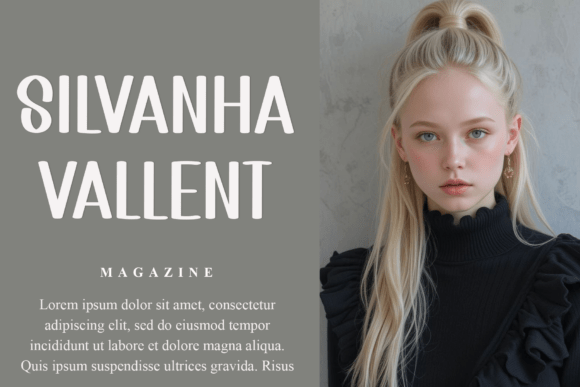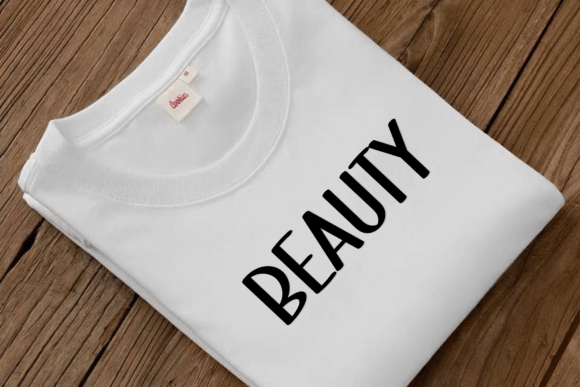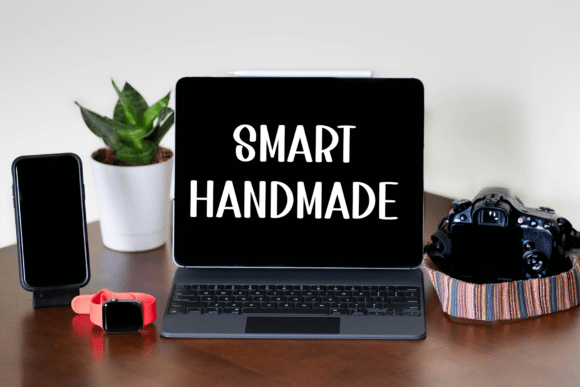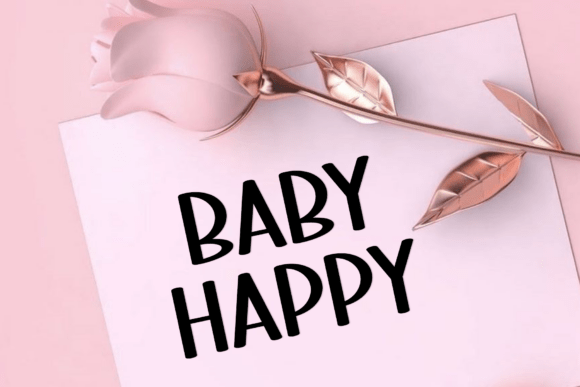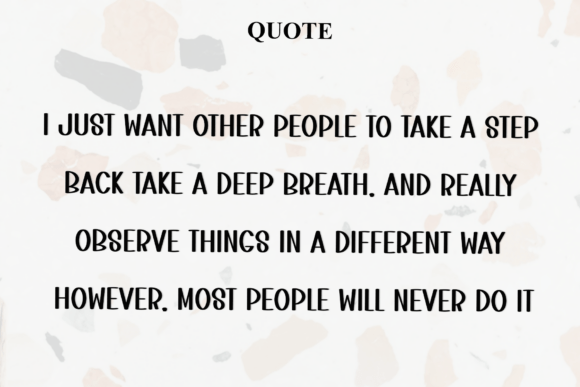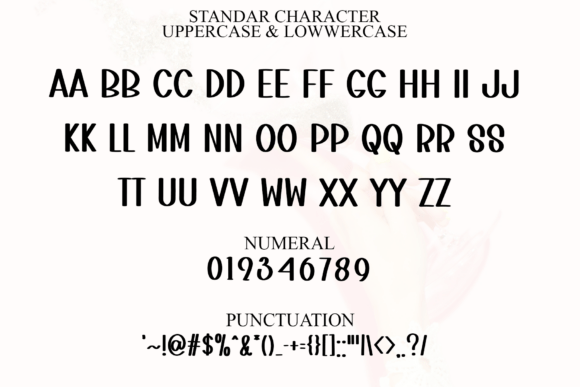
Introducing Cheescake Font: A Festive and Merry Typeface for the Holiday Season
Are you looking for a font that captures the spirit of the holiday season? Do you want to add a touch of enchantment to your designs and make them stand out? Look no further than Cheescake Font, a decorative and whimsical typeface that’s perfect for greeting cards, gift tags, and holiday-themed projects.
Cheescake Font is a festive and merry typeface that’s designed to bring a cheerful and nostalgic ambiance to your words. With its decorative elements and whimsical flair, it’s the perfect choice for designers and crafters who want to add a touch of magic to their designs. Whether you’re creating holiday greeting cards, gift tags, or festive decorations, Cheescake Font is sure to make your designs shine.
Cheescake Font is specifically designed for holiday-themed projects, making it the perfect choice for designers and crafters who want to create festive and fun designs. With its playful and whimsical style, it’s perfect for:
- Holiday greeting cards
- Gift tags and gift wrapping
- Festive decorations and signs
- Holiday-themed party invitations and decorations
- Christmas, Hanukkah, and New Year’s Eve designs
Cheescake Font offers a range of features and benefits that make it the perfect choice for designers and crafters. Some of the key features include:
- Decorative and whimsical design
- Perfect for holiday-themed projects
Why Choose Cheescake Font?
So why choose Cheescake Font for your holiday-themed projects? Here are just a few reasons:
- Unique and eye-catching design
- Perfect for creating festive and fun designs
Tips and Inspiration for Using Cheescake Font
Here are a few tips and inspiration ideas for using Cheescake Font in your designs:
- Use Cheescake Font to create festive holiday greeting cards and gift tags
- Add a touch of whimsy to your designs with the font’s decorative elements and ligatures
- Use Cheescake Font to create holiday-themed party invitations and decorations
Cheescake Font is a festive and merry typeface that’s perfect for holiday-themed projects. With its decorative elements and whimsical flair, it’s sure to add a touch of enchantment to your designs. Whether you’re a designer or crafter, Cheescake Font is a great choice for anyone looking to create festive and fun designs. So why wait? Download Cheescake Font today and let your typography shine with the magic of this beautiful font!